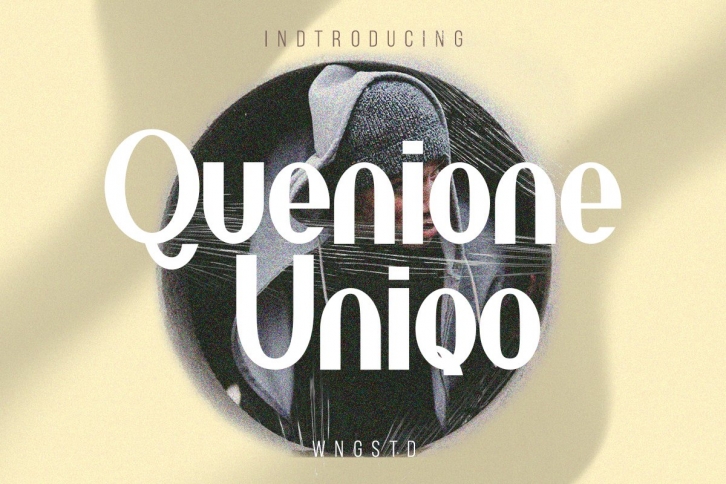
Quenione Uniqo Logo display is a trendy and unique font with an authentic style. It was designed by wangstudio and it's a great choice for creative people who need such a font. It was released on August 2, 2022 and the file size is 13.80 MB. Quenione Uniqo Logo display will add an organic vibe to any design idea!